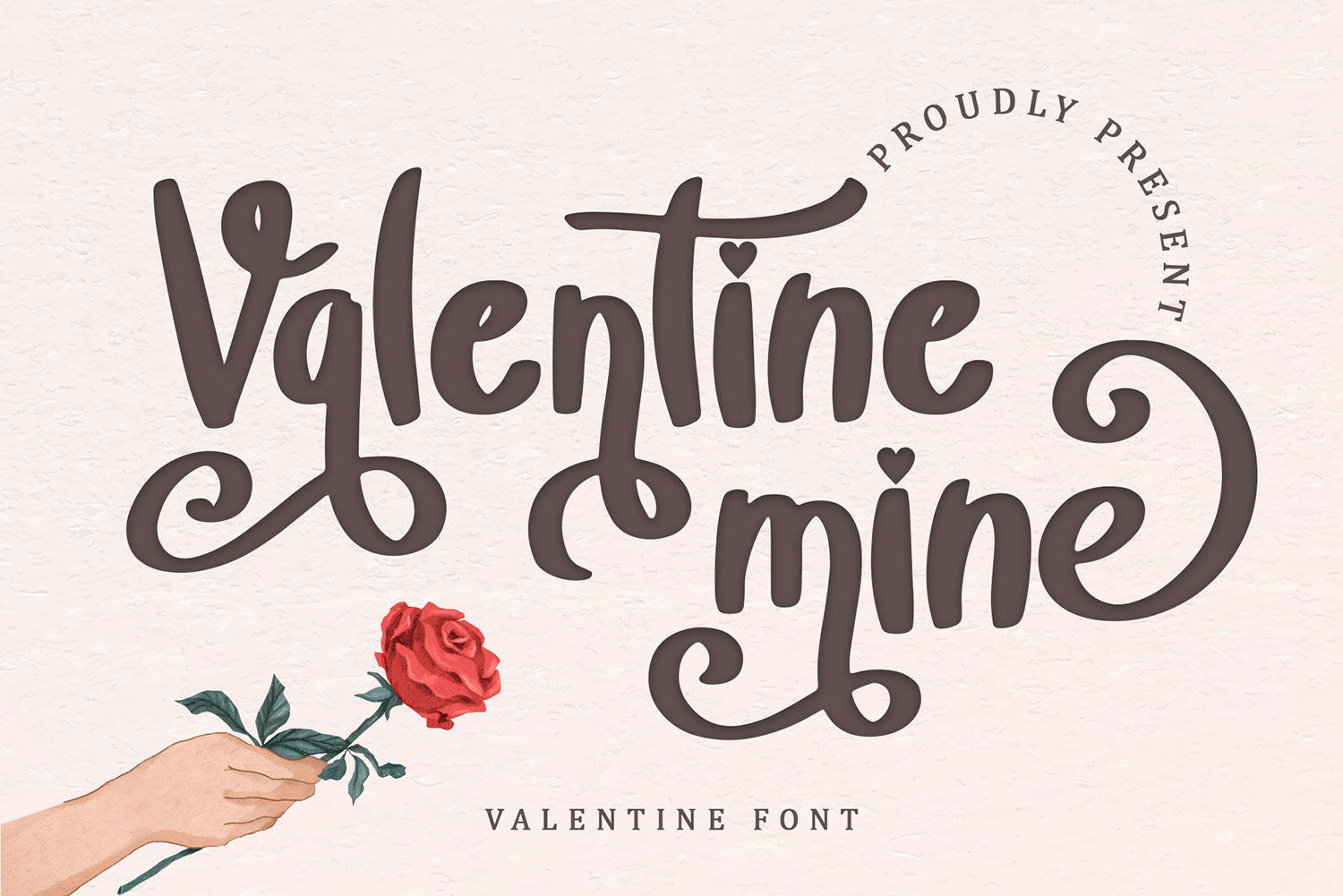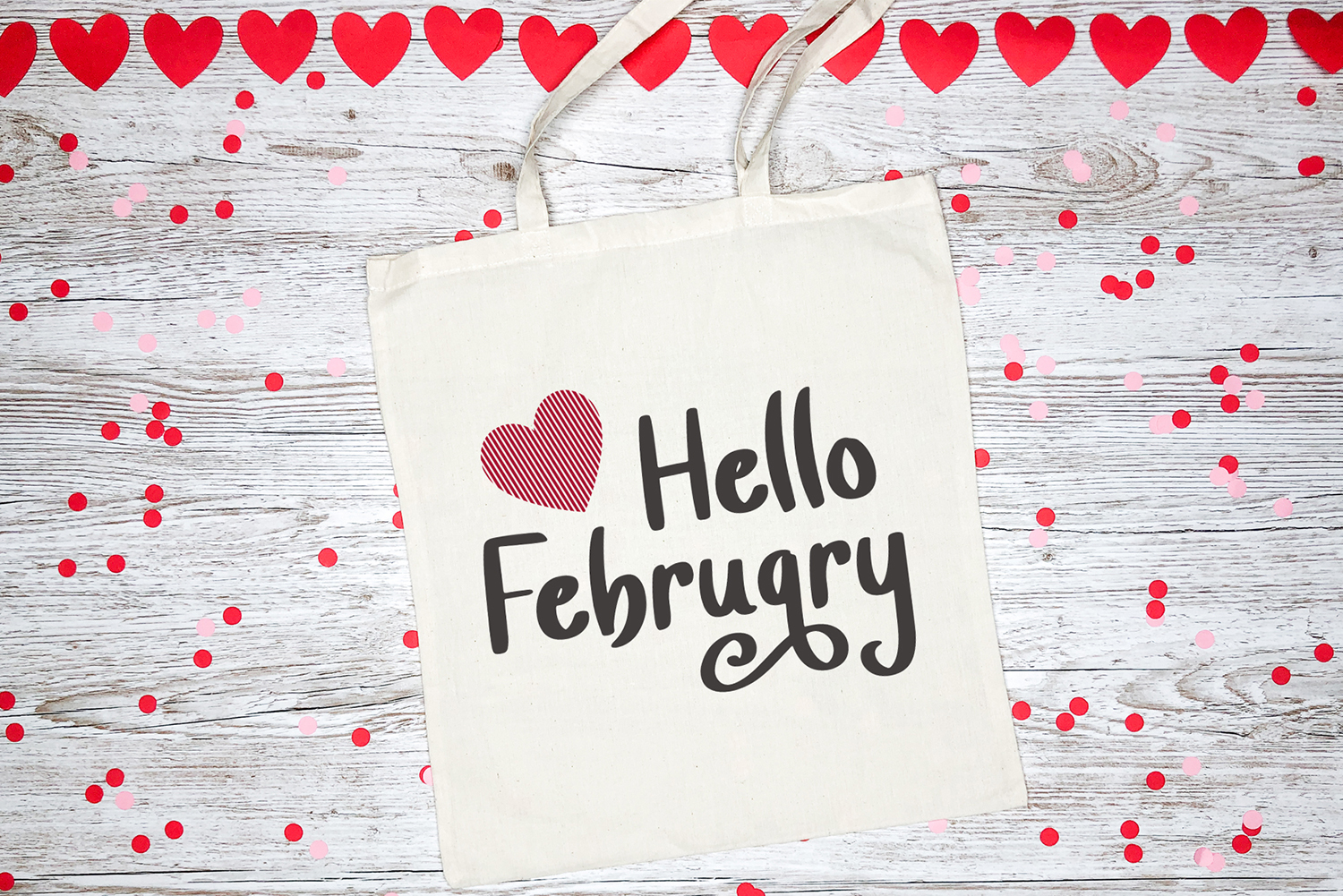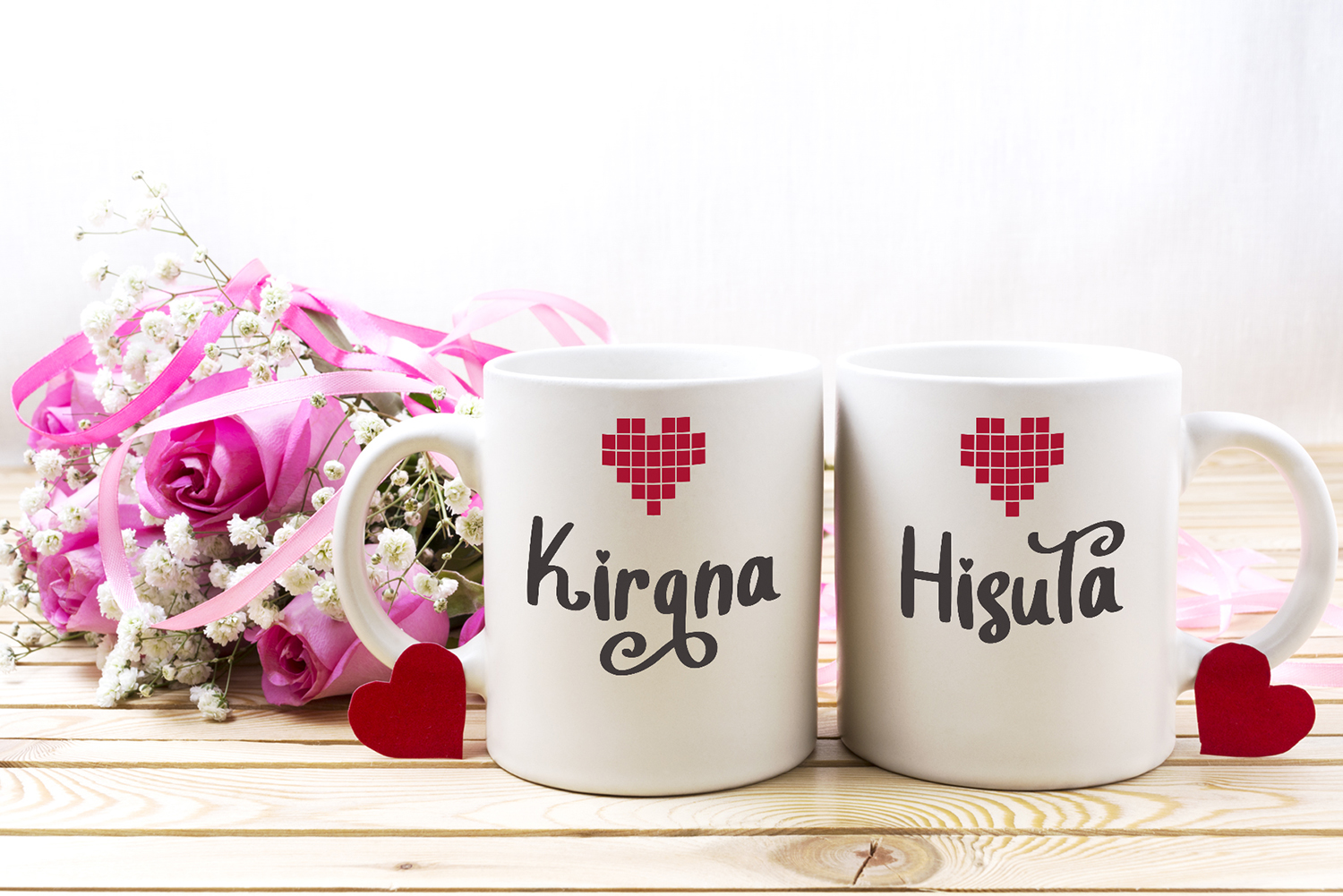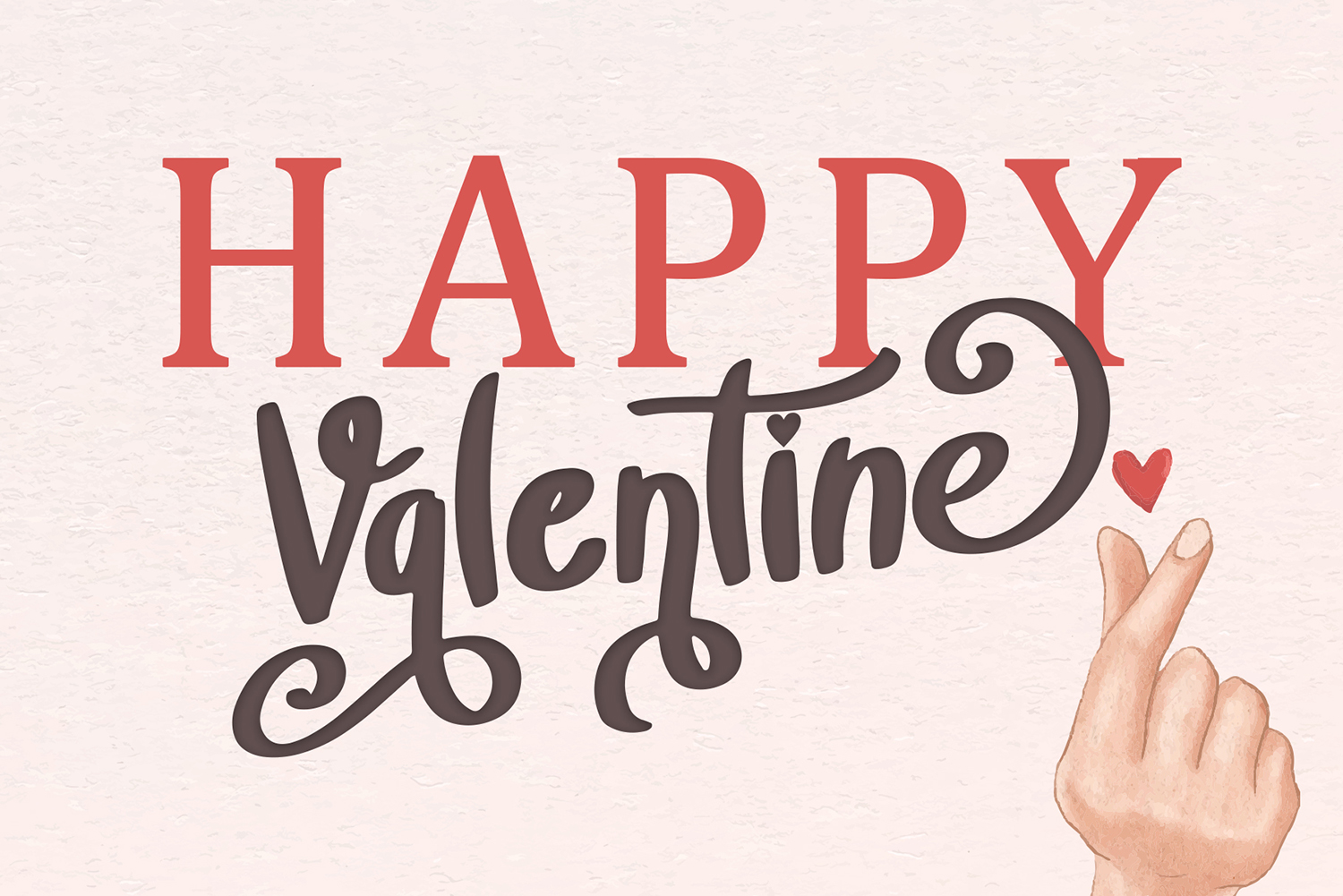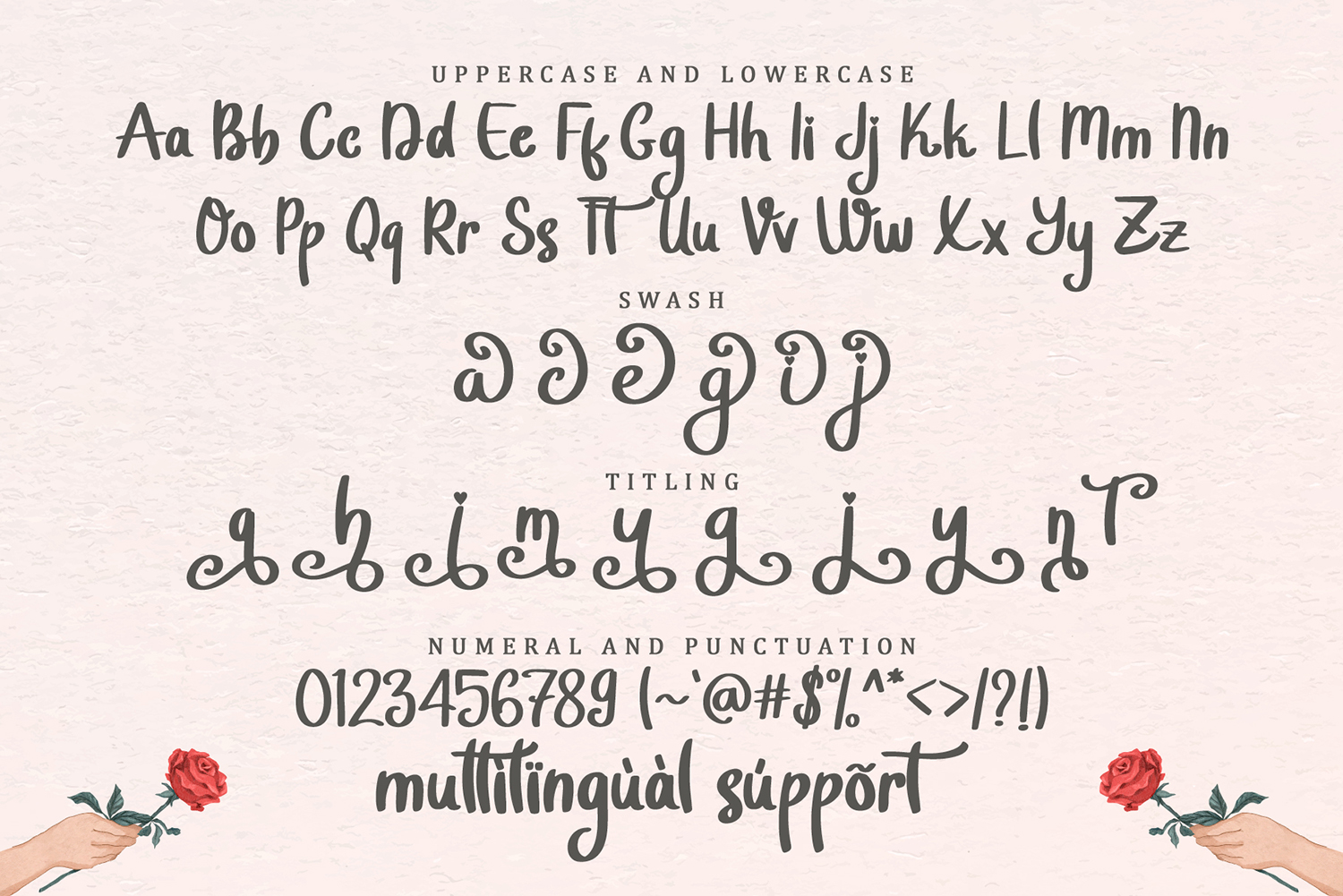
Valentine Mine Free Font
Introducing Valentine Mine Free Font, a charming handwritten font inspired by the forthcoming Valentine’s Day celebration. With its adaptable style and graceful form, this font complements a diverse array of designs. Infuse it into all your creative ventures, and watch as it imparts a romantic and distinctive handwritten charm to each one. This free typeface was designed by a talented Alif Ryan Zulfikar. If you like it don’t forget to check out the full version.